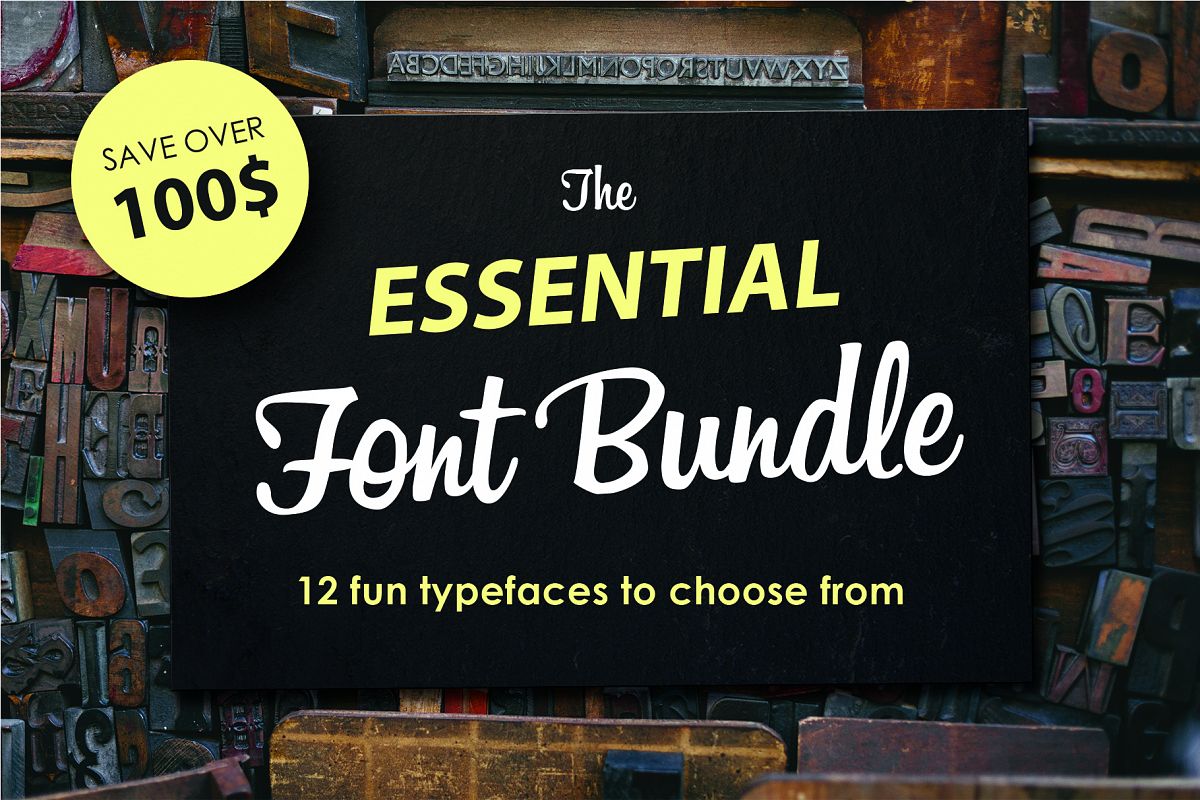
12 fonts in one bundle
12 fonts and typefaces for sale in my store. This essential bundle has a huge amount of variety. Included are: Serif, Sans Serif, and Slab Serif.